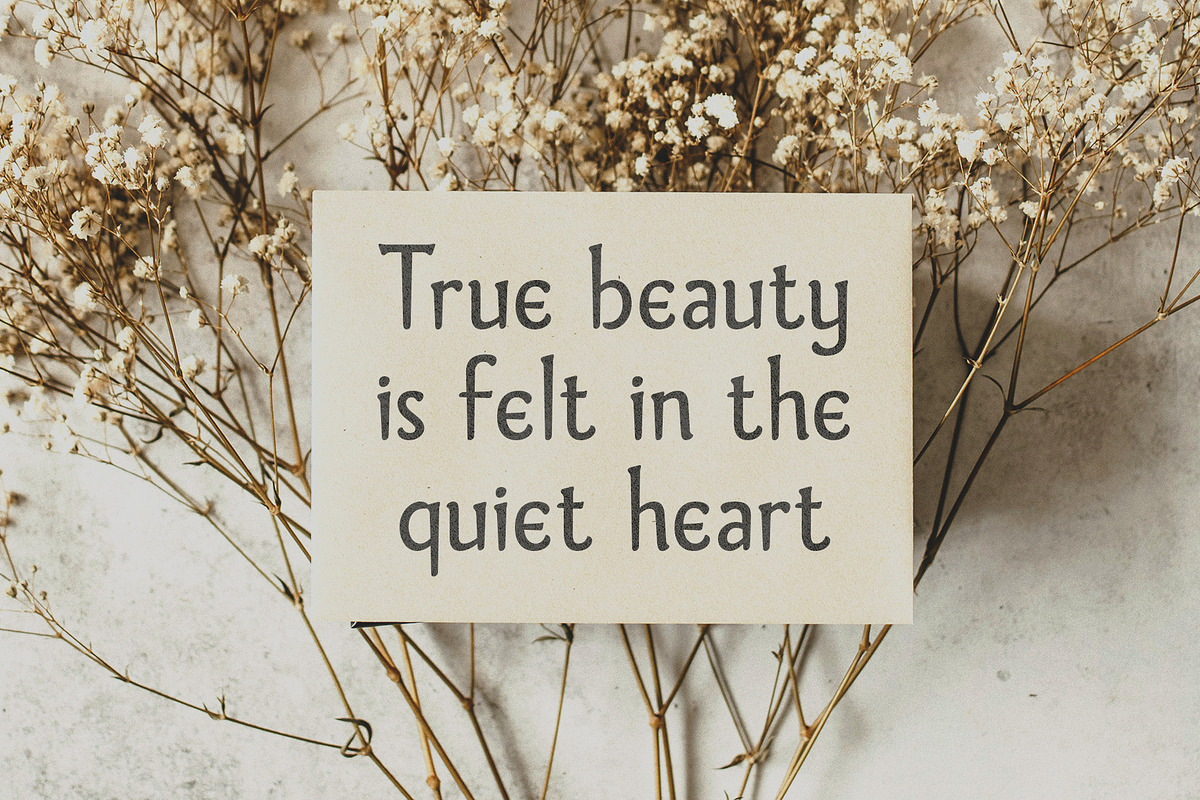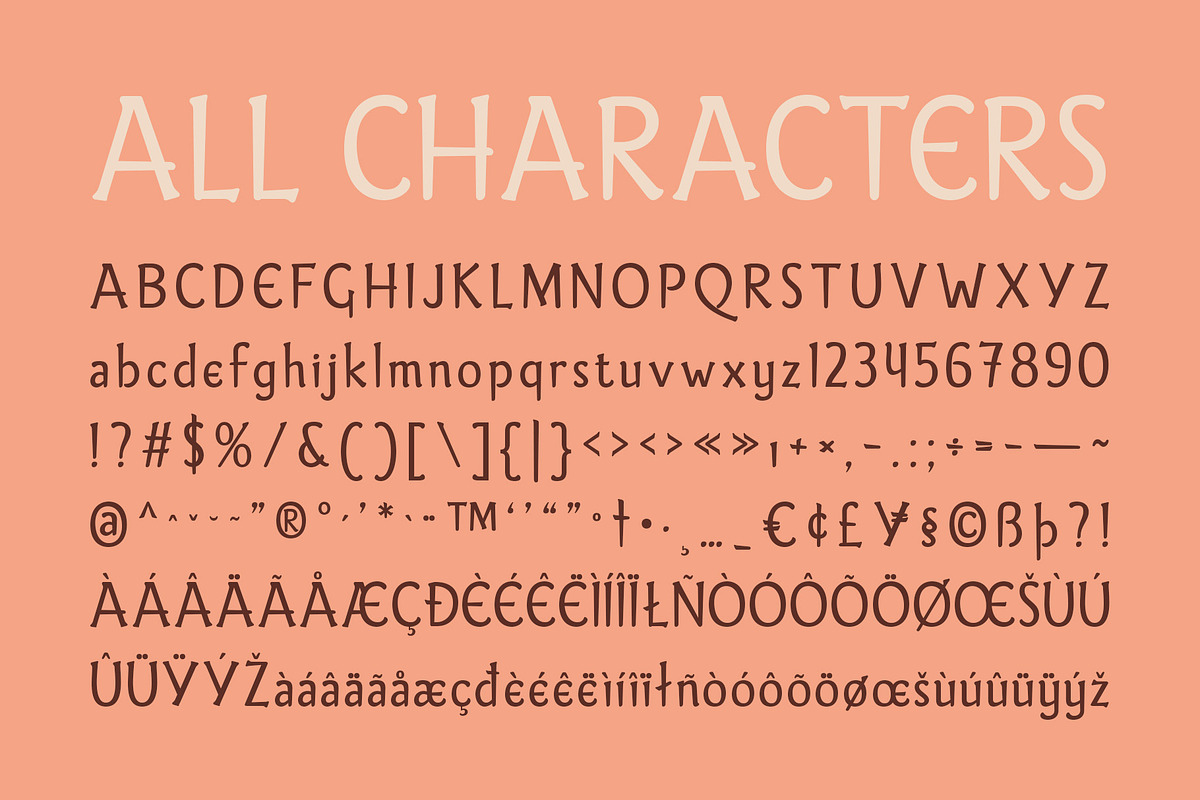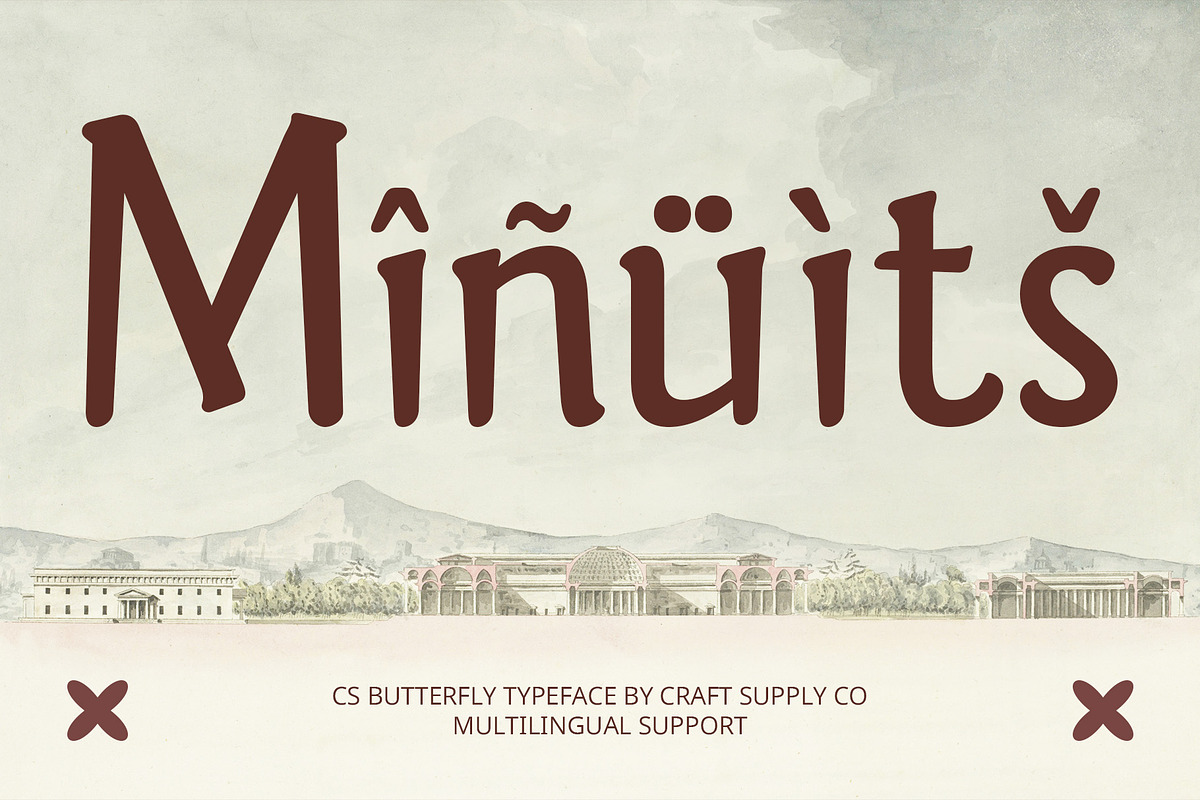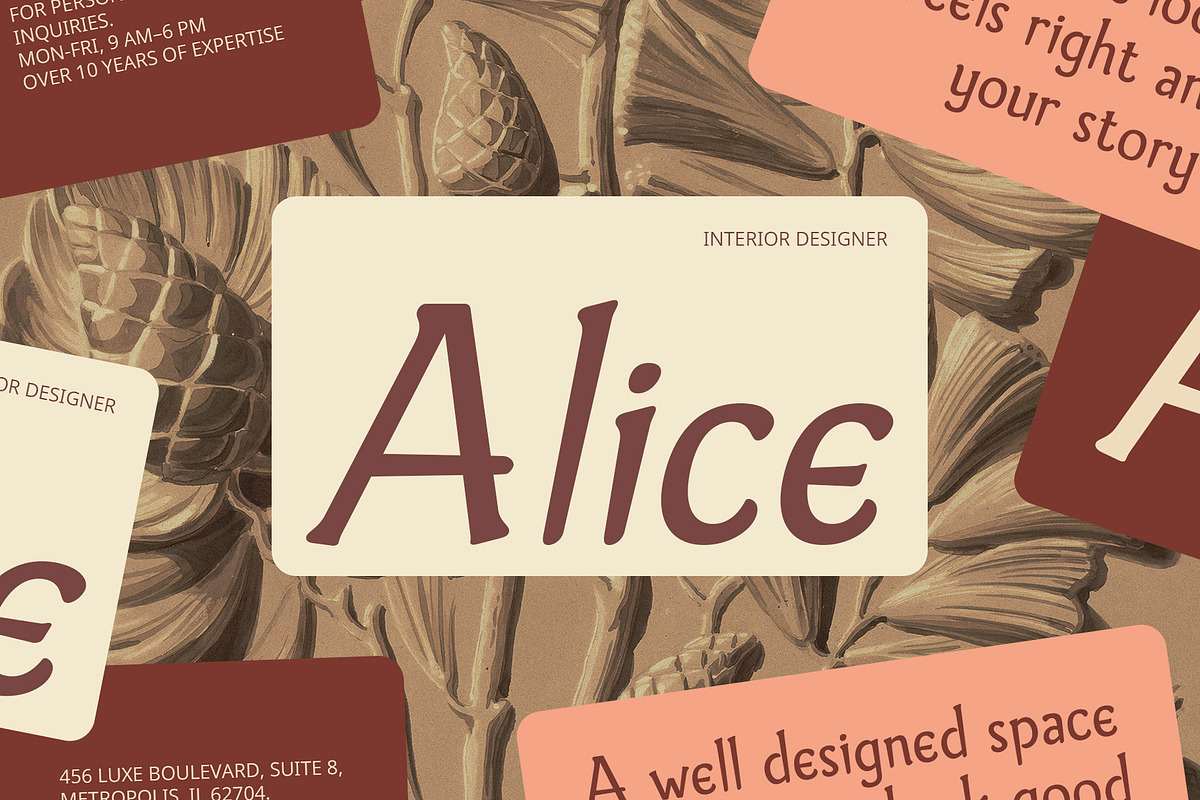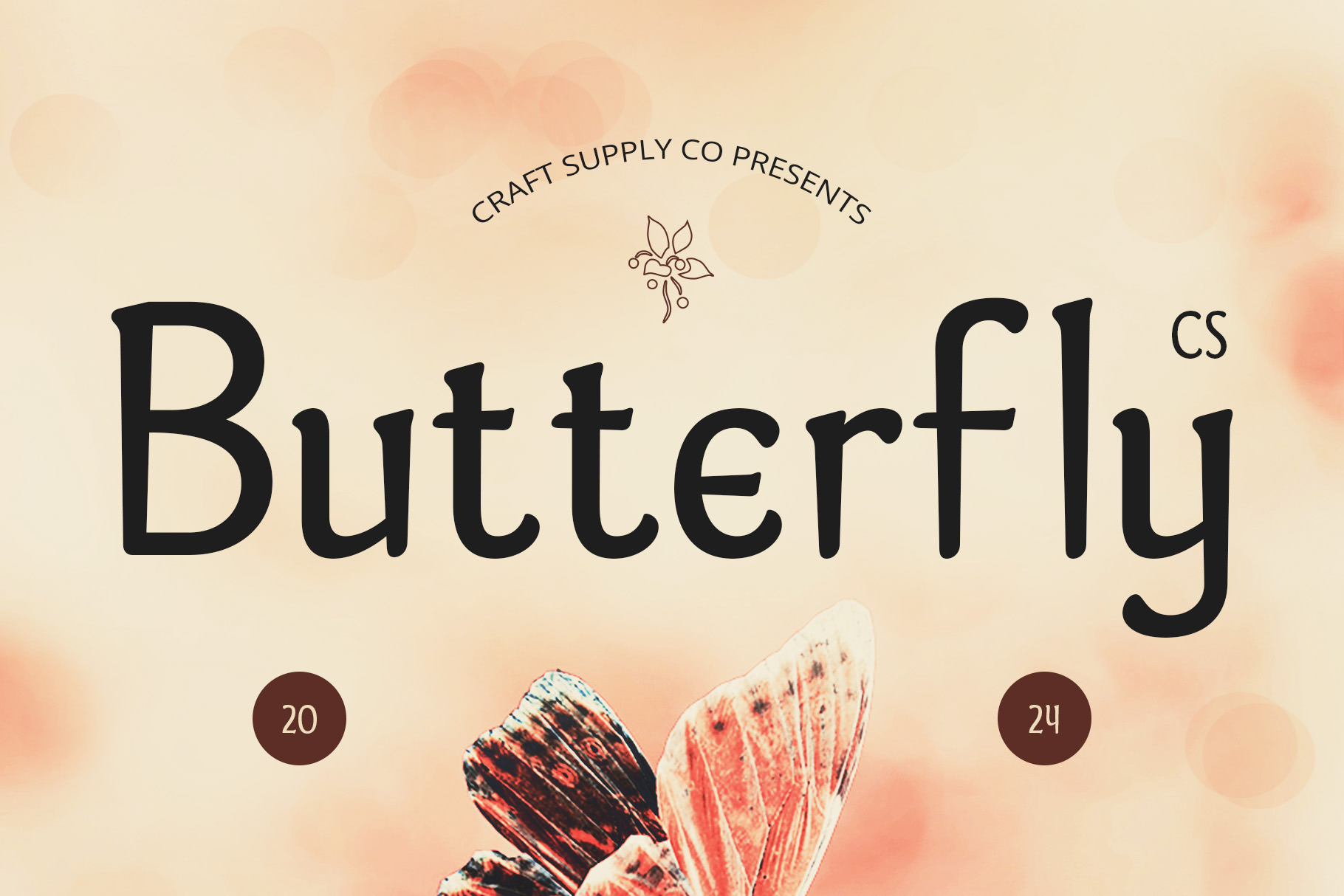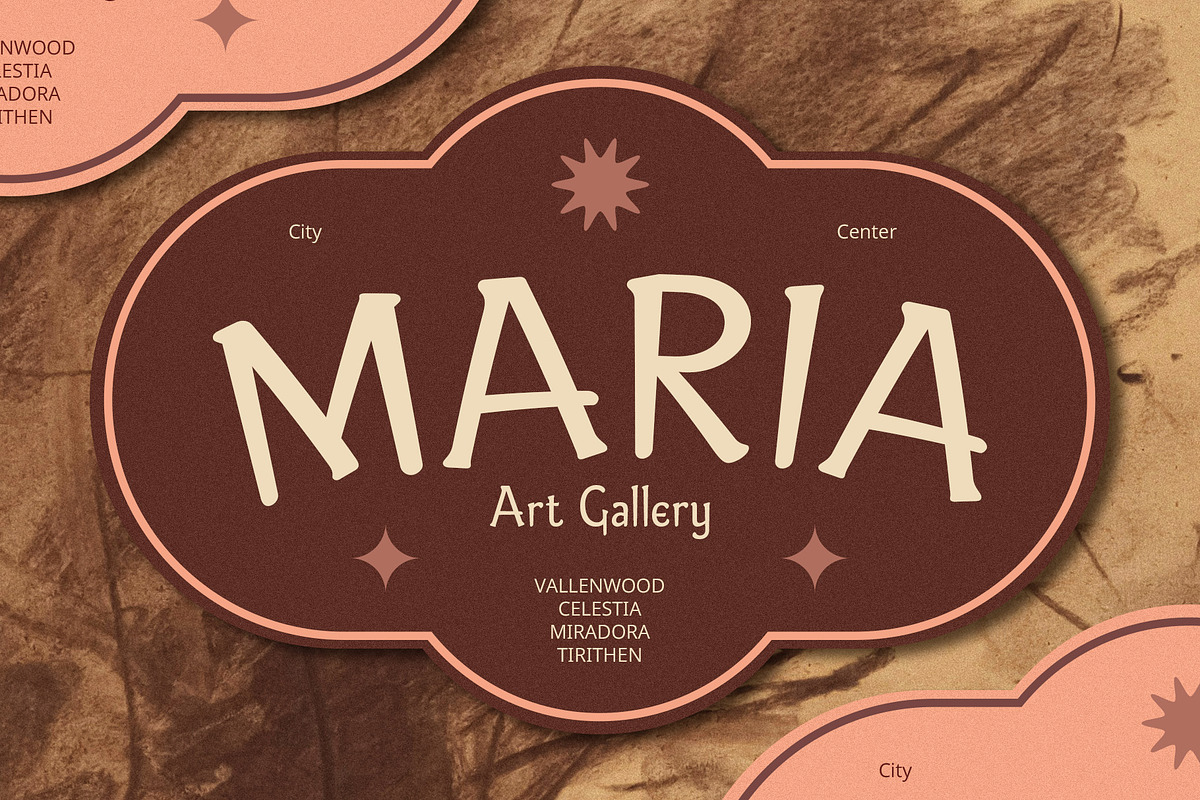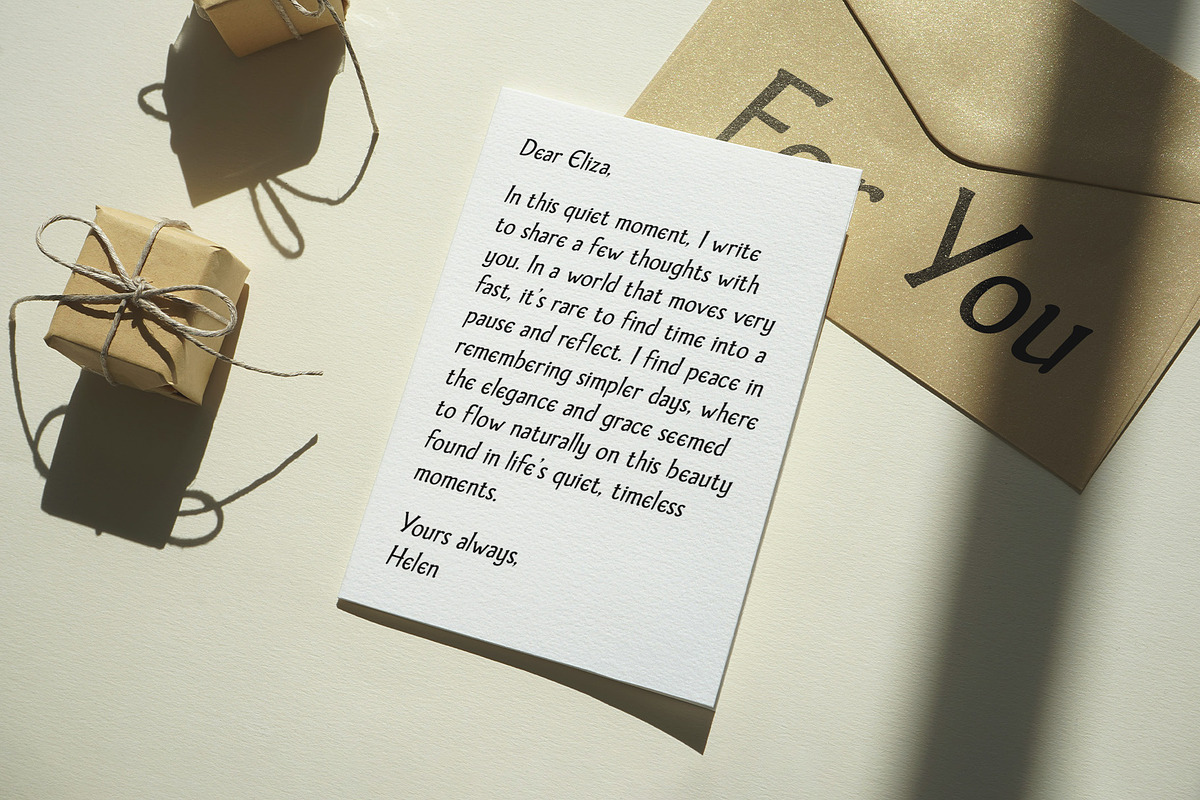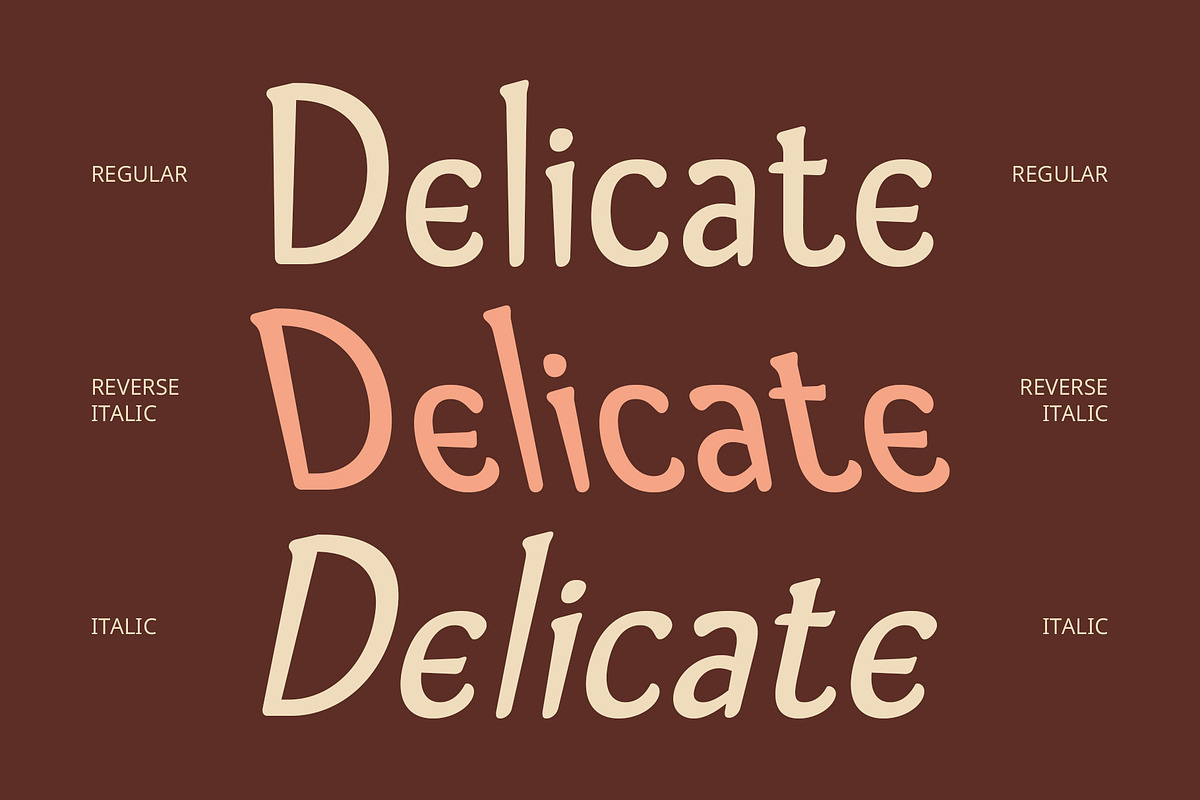
CS Butterfly – Greek Font
CS Butterfly – Greek-Inspired Display Font
Elegant Greek Influence with Modern Design CS Butterfly is a modern display font that combines the timeless elegance of Greek-inspired letterforms with soft, rounded shapes, creating a harmonious and refined aesthetic. The circular, flowing curves of each character evoke a sense of beauty and balance, while the subtle Greek influences add a unique, cultured touch. This font captures the essence of classical design, enhanced with a modern flair, making it perfect for projects that seek to convey sophistication and artistry.
Sophisticated Yet Distinctive Aesthetic The rounded forms of CS Butterfly bring a sense of fluidity and grace, while the Greek-inspired details provide a distinctive, memorable appearance. This harmonious blend creates a typeface that is both timeless and contemporary, offering an ideal choice for designs that aim to combine historical elegance with modern appeal. Whether used in branding, editorial layouts, or posters, CS Butterfly stands out with its refined beauty and cultural depth.
Versatile for a Range of Creative Projects Ideal for branding, CS Butterfly lends an artistic and cultured feel to logos, packaging, and marketing materials. It also works beautifully for posters and editorial designs, adding sophistication to magazines, event invitations, and other high-end printed materials.
- CS Butterfly Regular
- CS Butterfly Italic
- CS Butterfly Reverse Italic